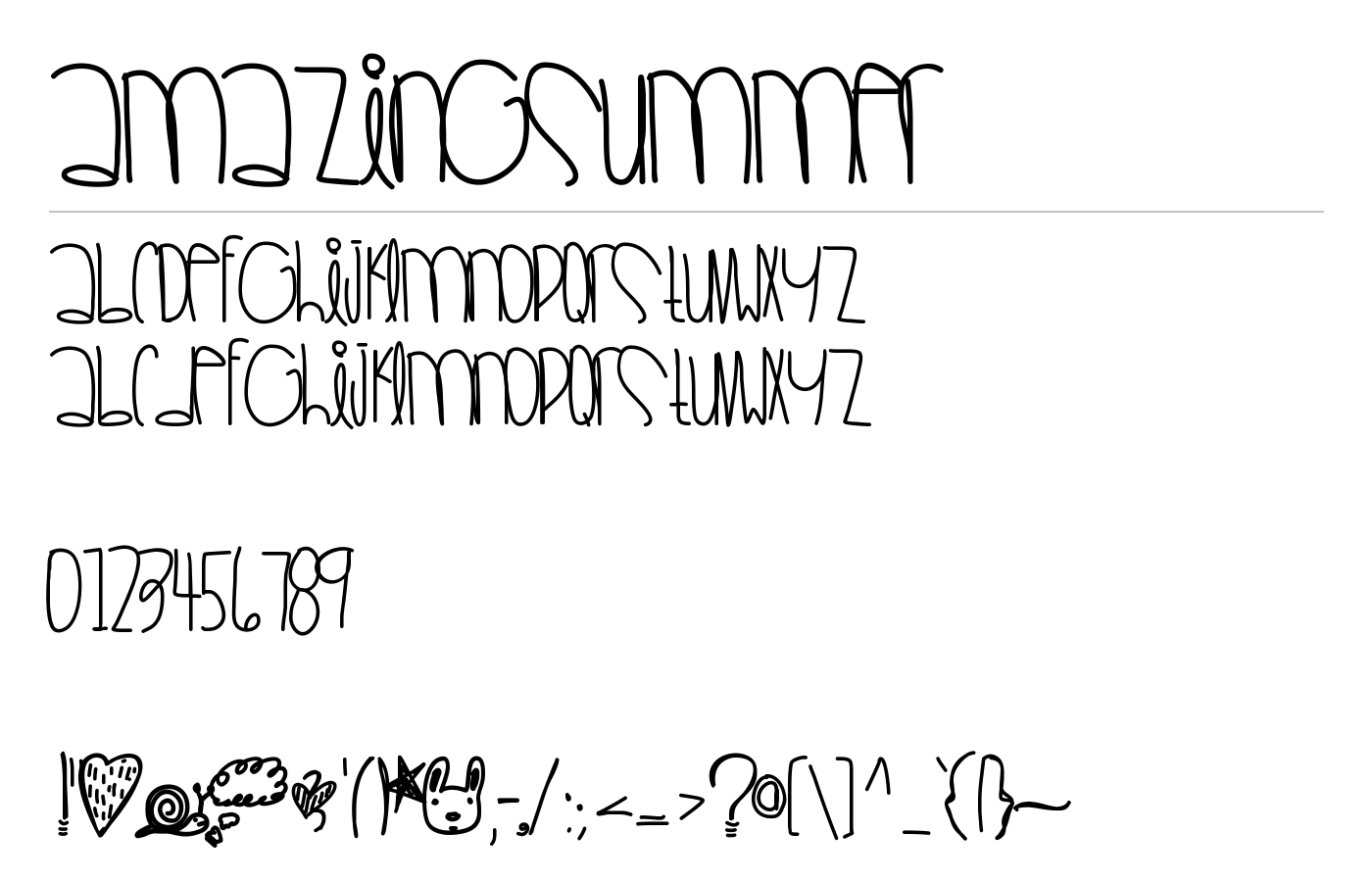
AmazingSummer is a playful, hand-drawn sans serif font with thin, irregular lines and a tall, narrow shape that gives it a quirky, casual feel. Its whimsical letterforms and charming doodle-like accents make it perfect for fun, creative projects such as invitations, children’s books, and informal branding. This font works best where a lighthearted and unique personality is desired, adding a friendly and approachable touch.
AmazingSummer Font
About AmazingSummer Font